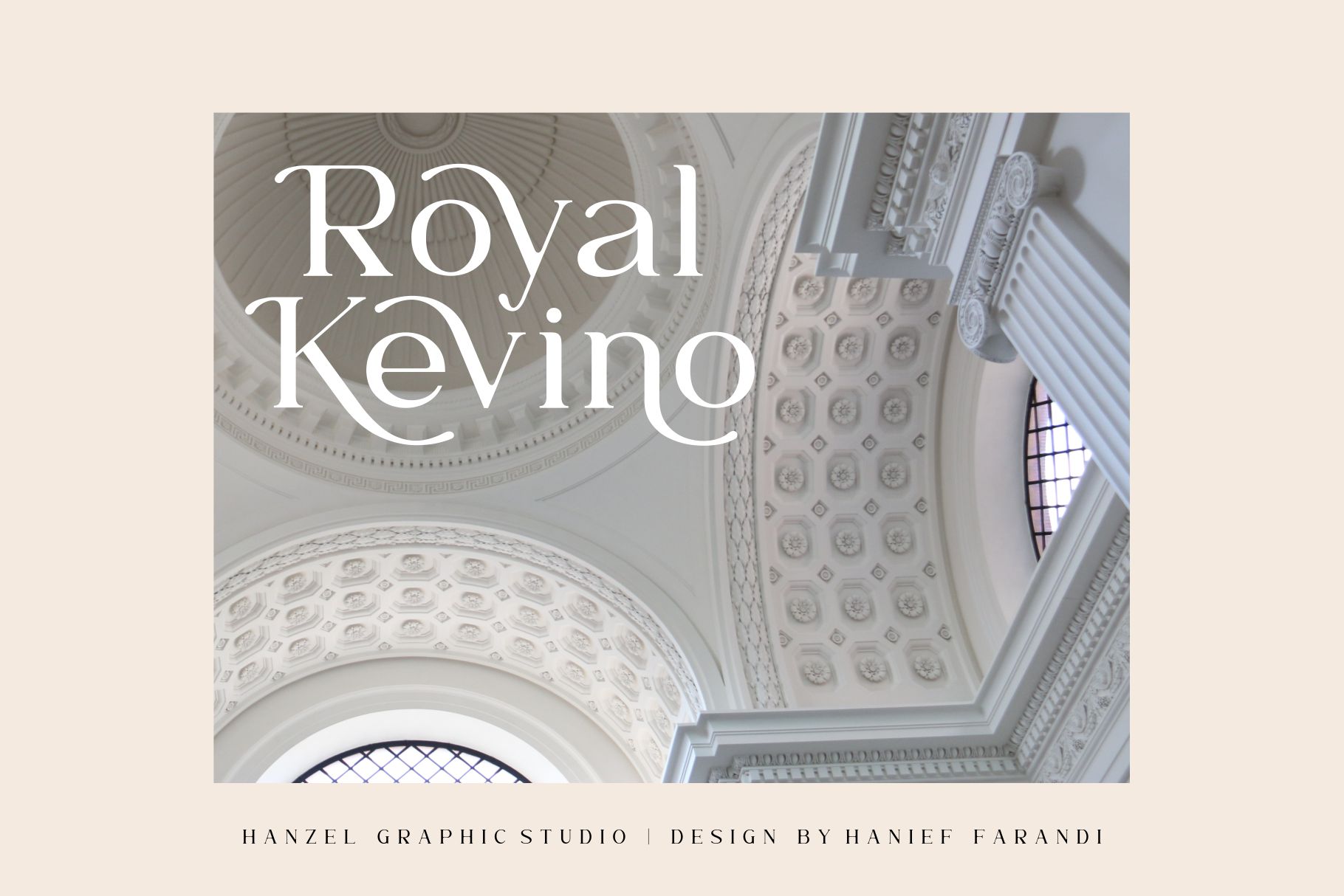
Royal Kevino – Serif Font
This modern serif typeface features serifs. Perfect for gorgeous logos & titles, Royal Kevino will pair beautifully with many fonts and work well with whatever project you’re working on.
• Containing full set of punctuation and numerals
• Include Alternate & stylistic set Typeface.
• An broader version of the font for a Royal Kevino different feel.